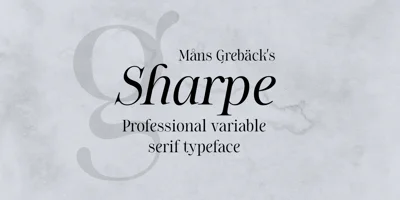
Sharpe Variable Font
Sharpe Variable Font excels in dynamic design applications including responsive web design, interactive digital interfaces, modern app typography, adaptive branding systems, progressive web applications, motion graphics projects, digital magazine layouts, smart device displays, variable signage systems, and innovative user experience designs. This advanced typeface brings technological sophistication to digital projects.
What makes Sharpe Variable Font truly exciting is its revolutionary variable font technology that allows seamless weight and width adjustments in real-time. The font features precisely engineered letterforms with smooth interpolation between weights, enabling designers to create infinite typographic variations with a single font file. Its technological innovation and design flexibility make it perfect for modern brands embracing responsive design and dynamic user experiences.
The Sharpe Variable Font family encompasses continuous weight variations from Thin to Black, with potential width and optical size axes. These infinite options provide designers with unprecedented typographic control, allowing precise customization for any design context while maintaining consistent character and optimal file efficiency.
Whether you're developing responsive websites, creating interactive applications, or designing adaptive brand systems, Sharpe Variable Font delivers the technological advancement and design flexibility that contemporary digital projects require. Its exceptional innovation and variable capabilities make it invaluable for designers working with modern web technologies, requiring dynamic typography that adapts seamlessly across devices and contexts.